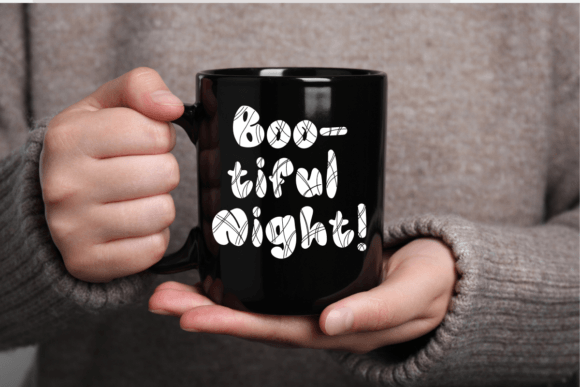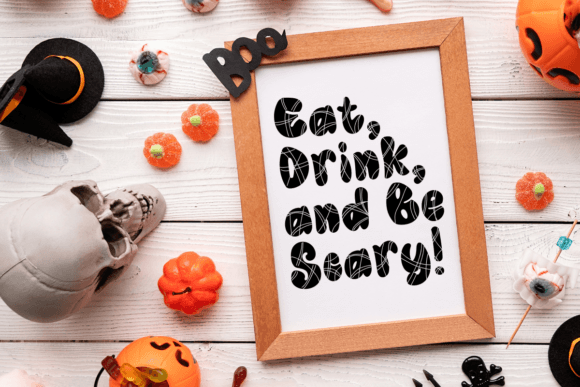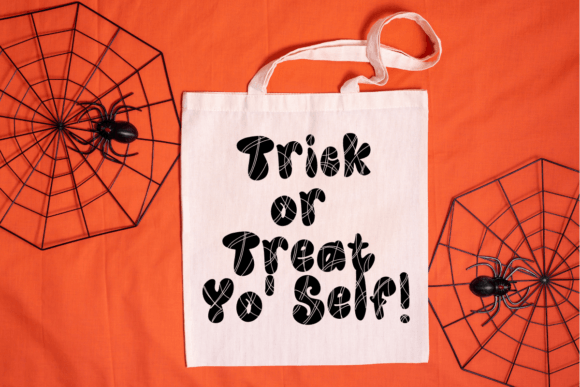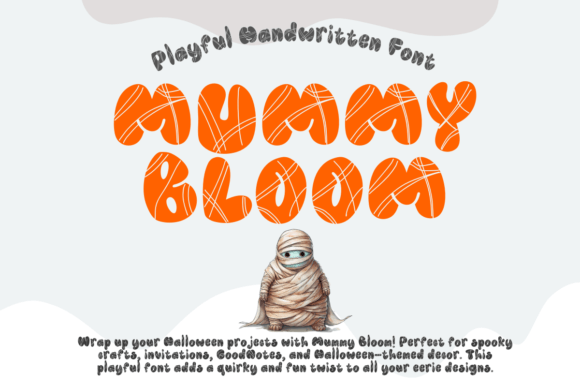
Introduction to Mummy Bloom Font
Mummy Bloom Font is a playful display font, perfect for adding a hauntingly fun touch to your Halloween projects.
Its versatility makes it ideal for various creations such as party invitations, spooky crafts, GoodNotes, themed social media posts, and more Whether you’re designing for a Halloween party or crafting eerie decorations, Mummy Bloom will add a playful fright to all your projects.
Key Features of Mummy Bloom Font
Why Choose Mummy Bloom Font?
Mummy Bloom Font offers exceptional quality and versatility, making it a valuable addition to your design toolkit. Whether you’re creating for personal projects or commercial use, Mummy Bloom Font delivers professional results.